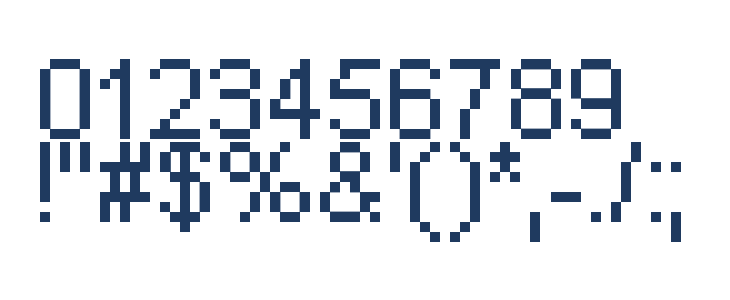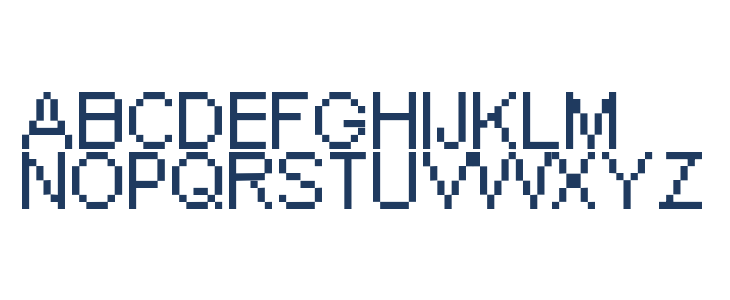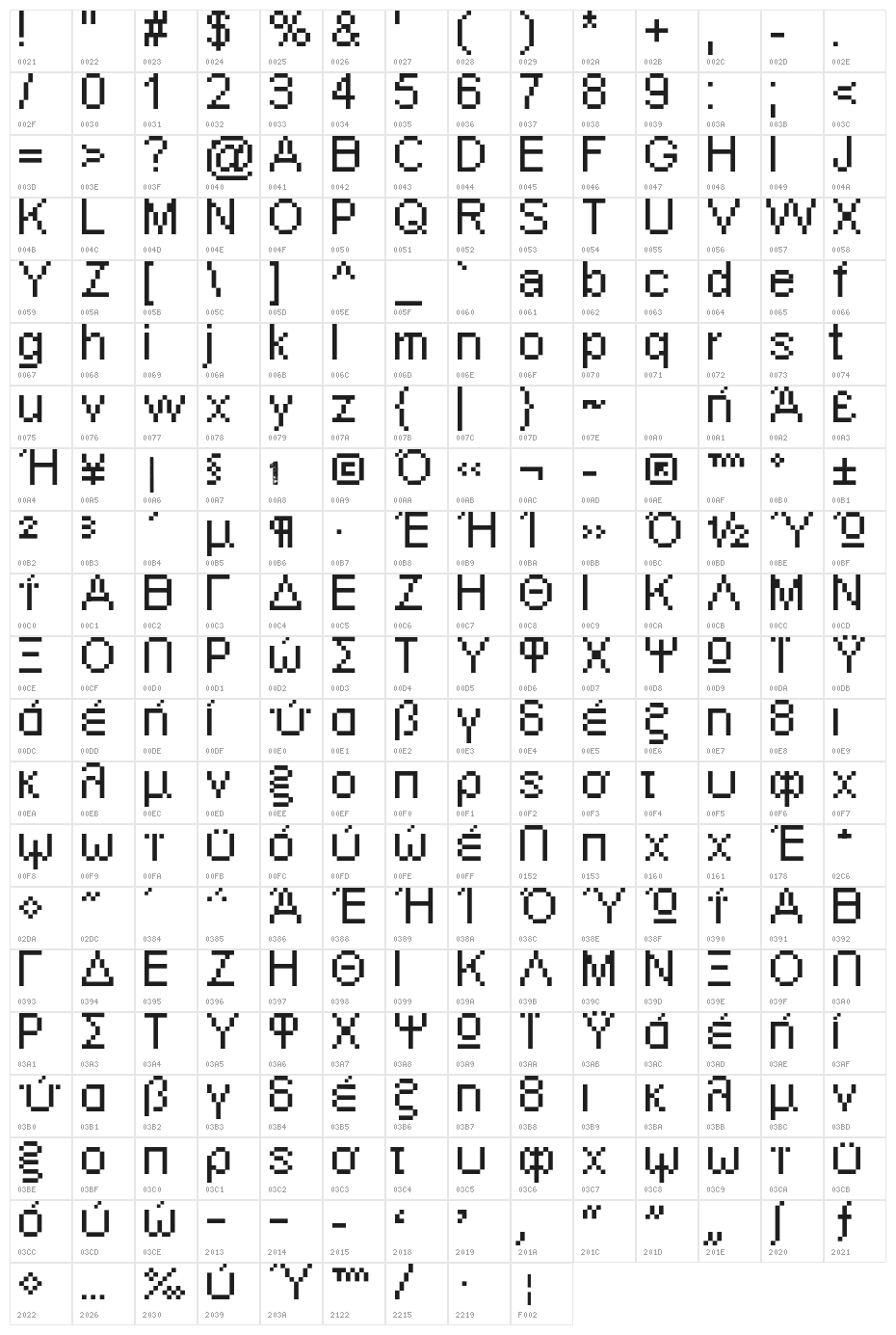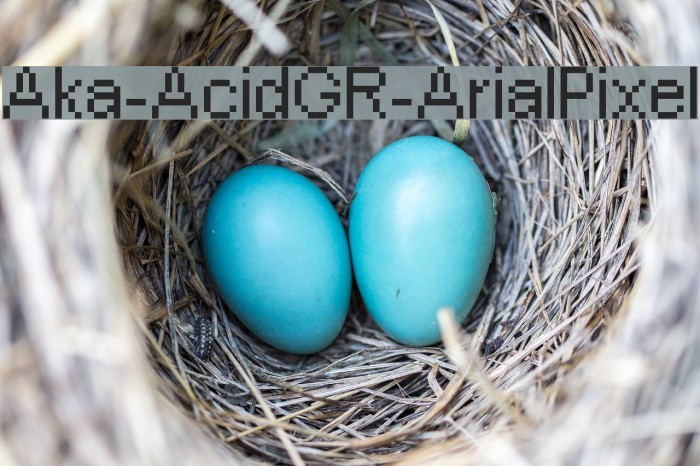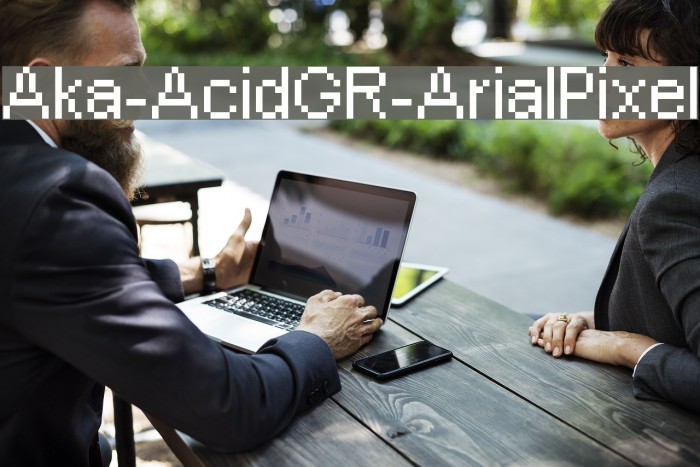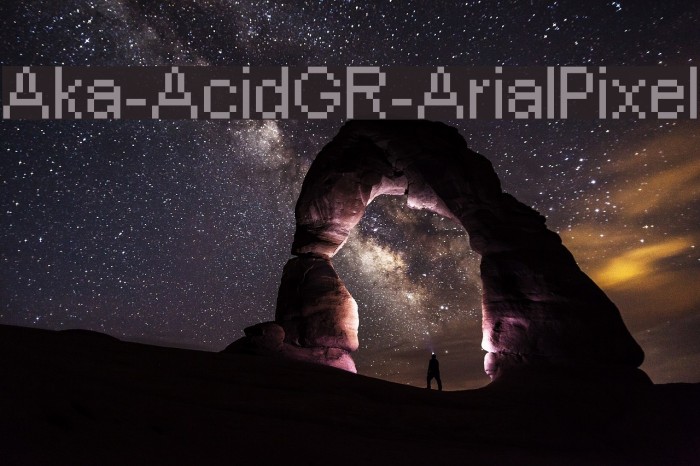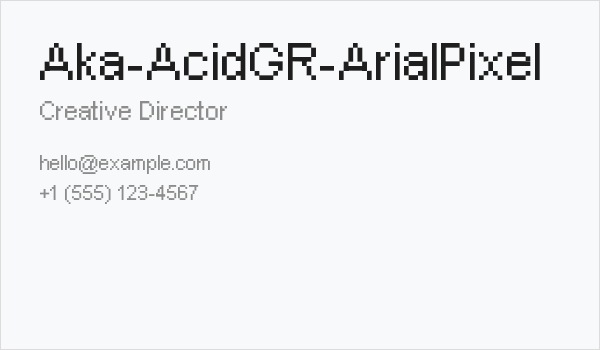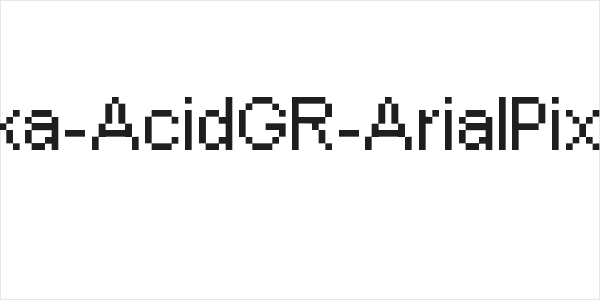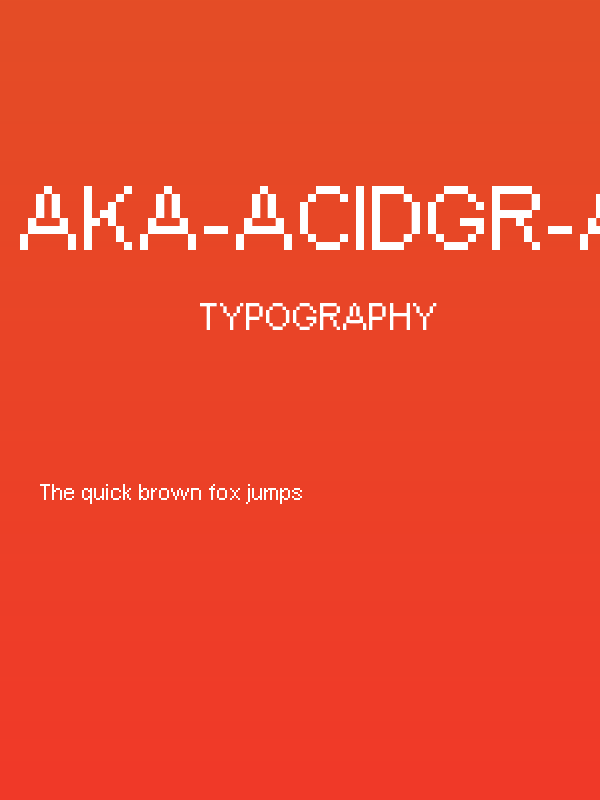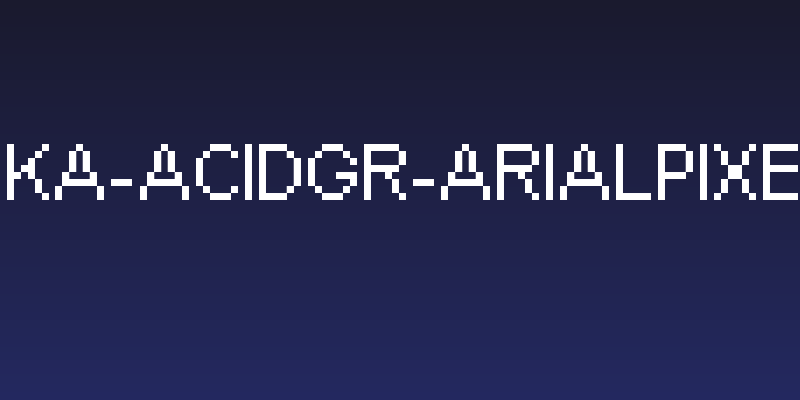
Aka-AcidGR-ArialPixel Font
Aka-AcidGR-ArialPixel Description
This font is a pixelated, monospaced typeface that evokes a retro, digital aesthetic reminiscent of early computer screens and video games. Each character is constructed with a grid-like precision, giving it a blocky and geometric appearance. The uniformity in character width ensures a consistent and orderly presentation, making it ideal for digital displays or projects that aim to capture a vintage tech vibe. The uppercase and lowercase letters maintain a similar height, enhancing the font's monospaced nature. Numbers and special characters are equally pixelated, ensuring a cohesive look across all glyphs.
| Use Case | Digital displays, Retro games, Tech-themed designs |
| Proposed Projects | Ideal for retro video games, digital art, tech-themed posters, and any project requiring a nostalgic computer screen look. |